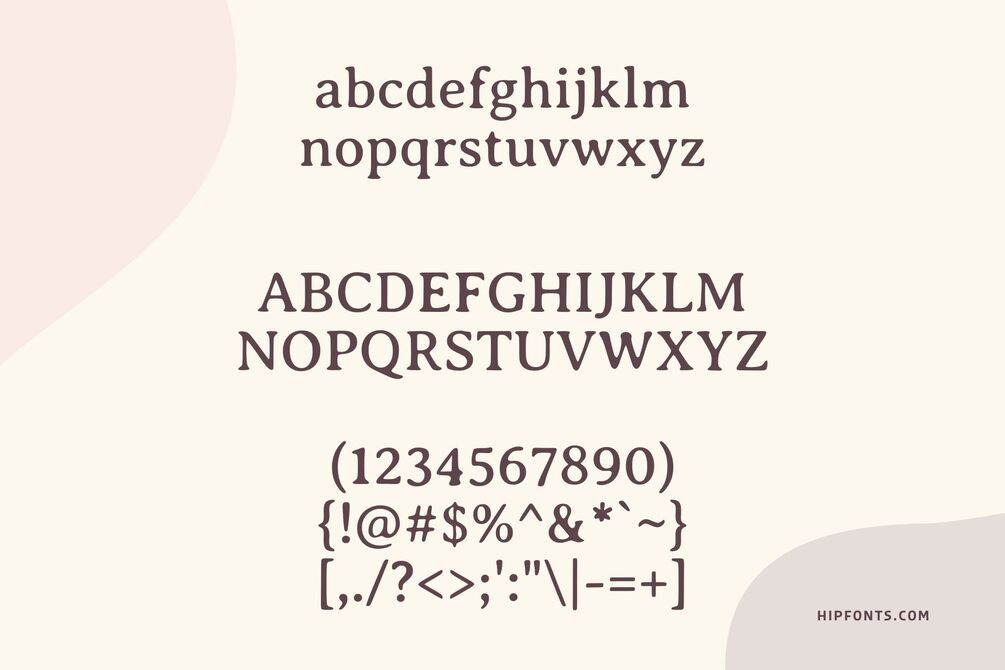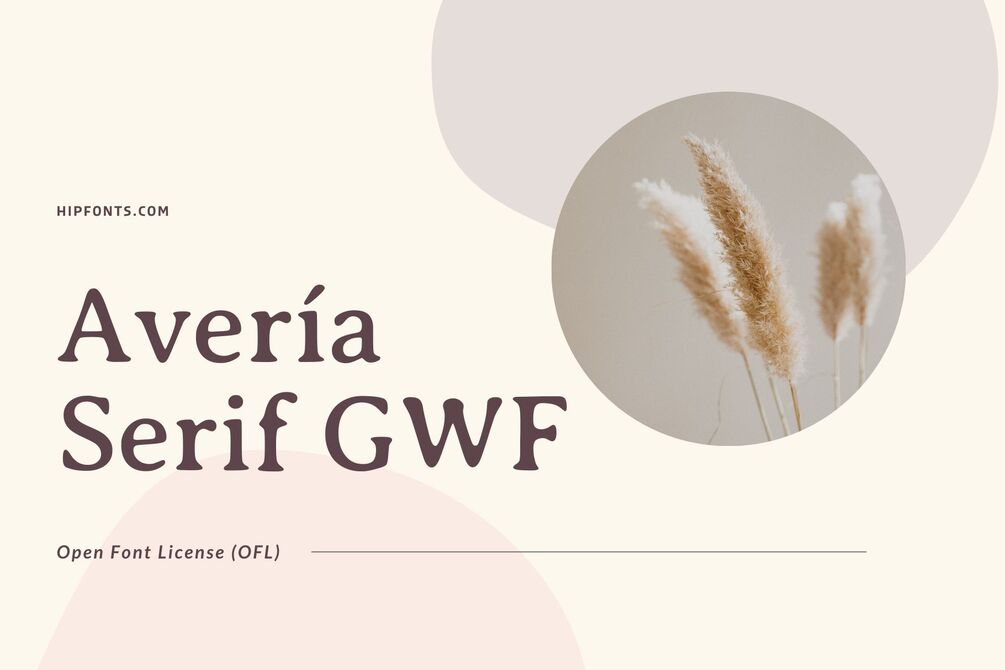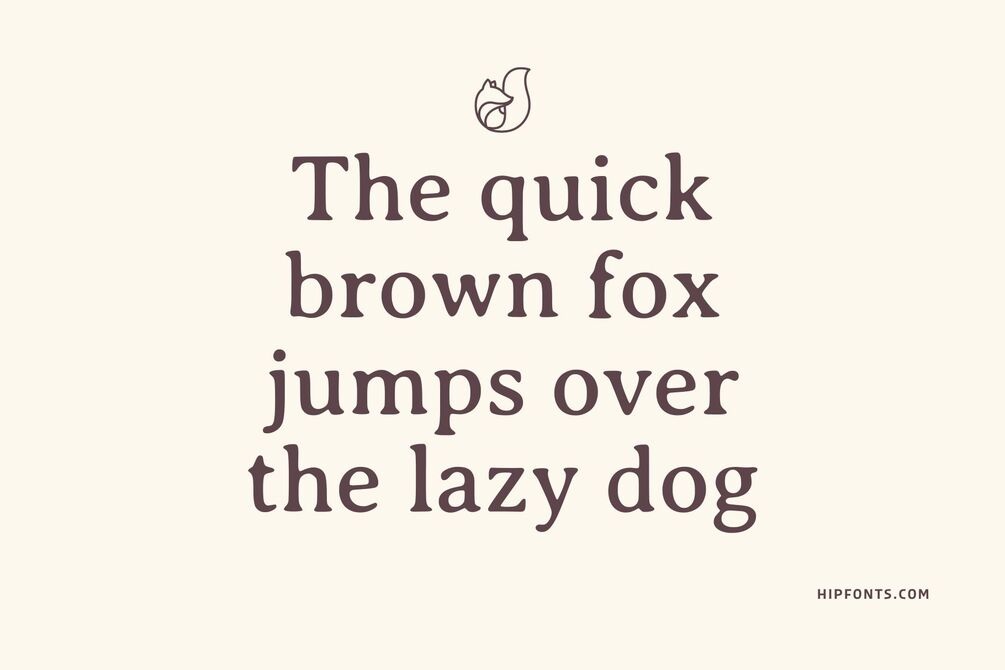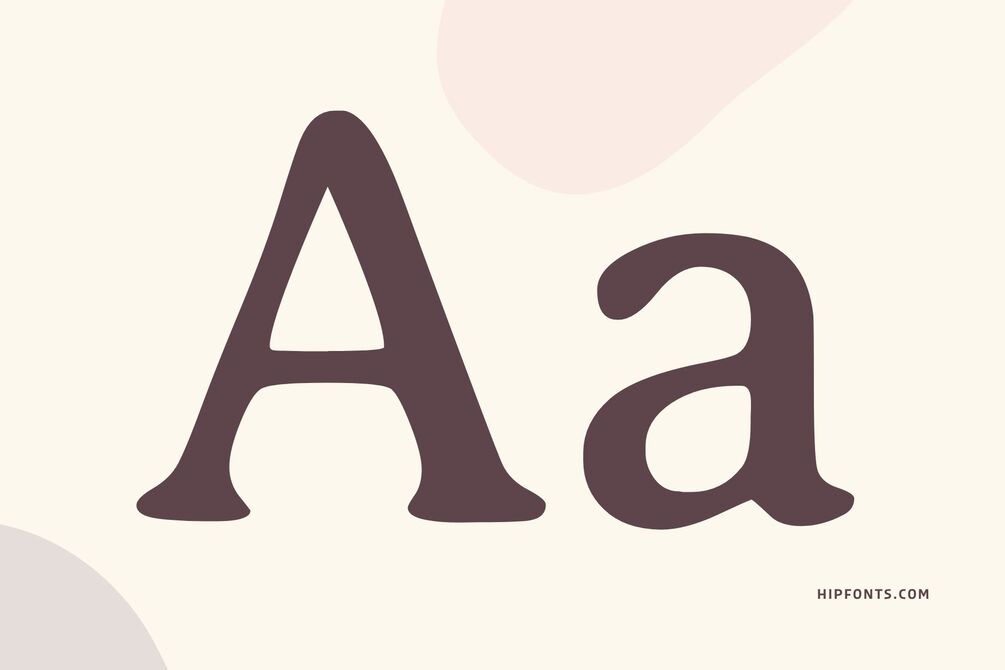
Avería Serif GWF
Avería Serif GWF is a serif font designed by Dan Sayers. It is a part of the Avería font family, which was created as a result of an experiment to create a typeface using only a malfunctioning printer. The font has a rough and imperfect look due to its design process, which involved manipulating the printer's errors.
The font is available for free on Google Fonts and can be used for both personal and commercial projects. It is a popular choice for designers looking to create a unique and distinctive look for their projects. Avería Serif GWF is suitable for a variety of applications, including print and digital media. Its irregular and quirky appearance makes it a great choice for projects that require a non-traditional or artistic look.